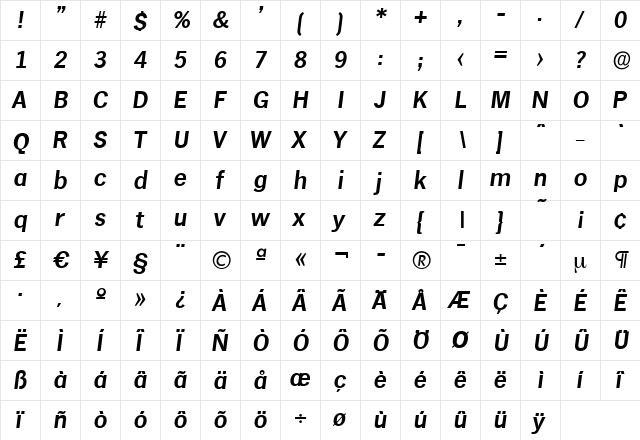
StephenBecker Bold Italic Font Preview
Design Context for StephenBecker Typeface
StephenBecker offers clean, dependable letterforms without strong stylistic allegiance, making it a practical choice for designers who need flexibility. The dynamic lean of this cut emphasises speed and emphasis in any layout. The heavy weight commands attention and anchors typographic hierarchies.
Pro Tip: Try StephenBecker for annotation and caption copy alongside an upright companion — the contrast in angle creates a dynamic but ordered typographic system.